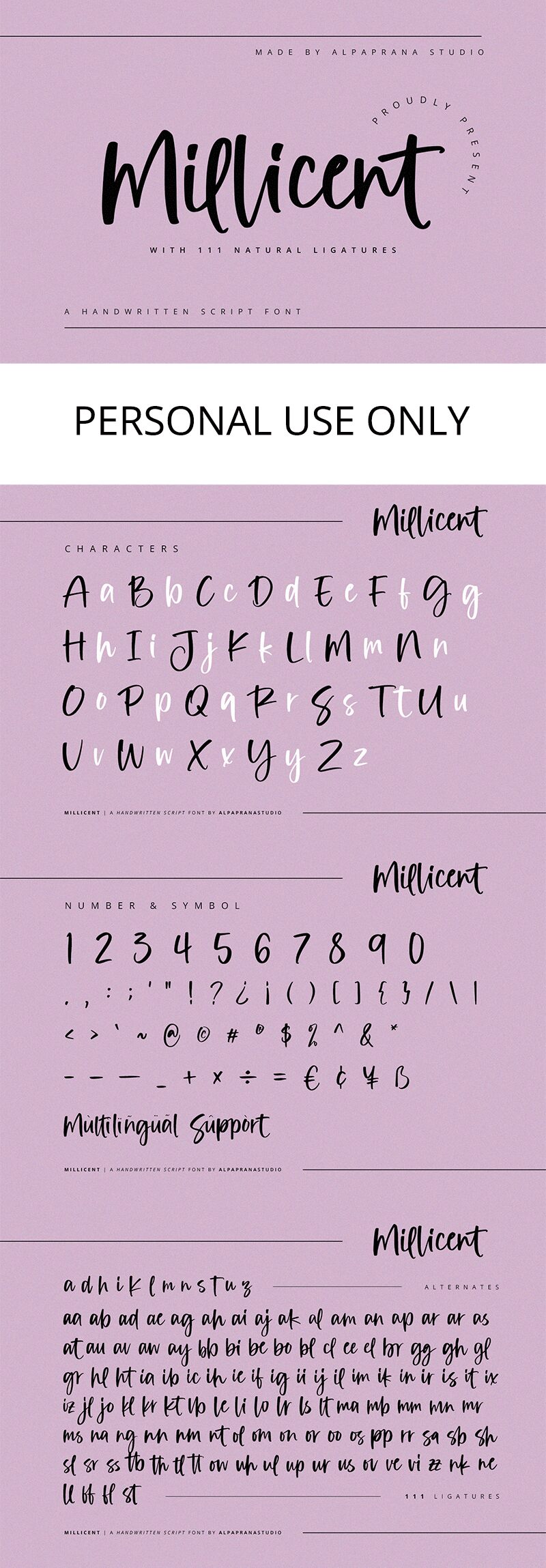
Milicent
Milicent font, a creation by Alpaprana Studio, is a free handwritten font whose modern flair and casual elegance give it an expressive artistic vibe. A warm character accompanies this typeface which can be seen in its comfortable laid-back style perfect for relaxed projects with laid-back concepts and audience.
Milicent is great for logos, branding designs, advertisements, product packages and labels. It’s also ideal for titles for books or magazines, signages, invitation cards like wedding invitations and greeting cards such as holiday greeting cards. Other fitting design projects include shop signboards and roll-up banners among others.